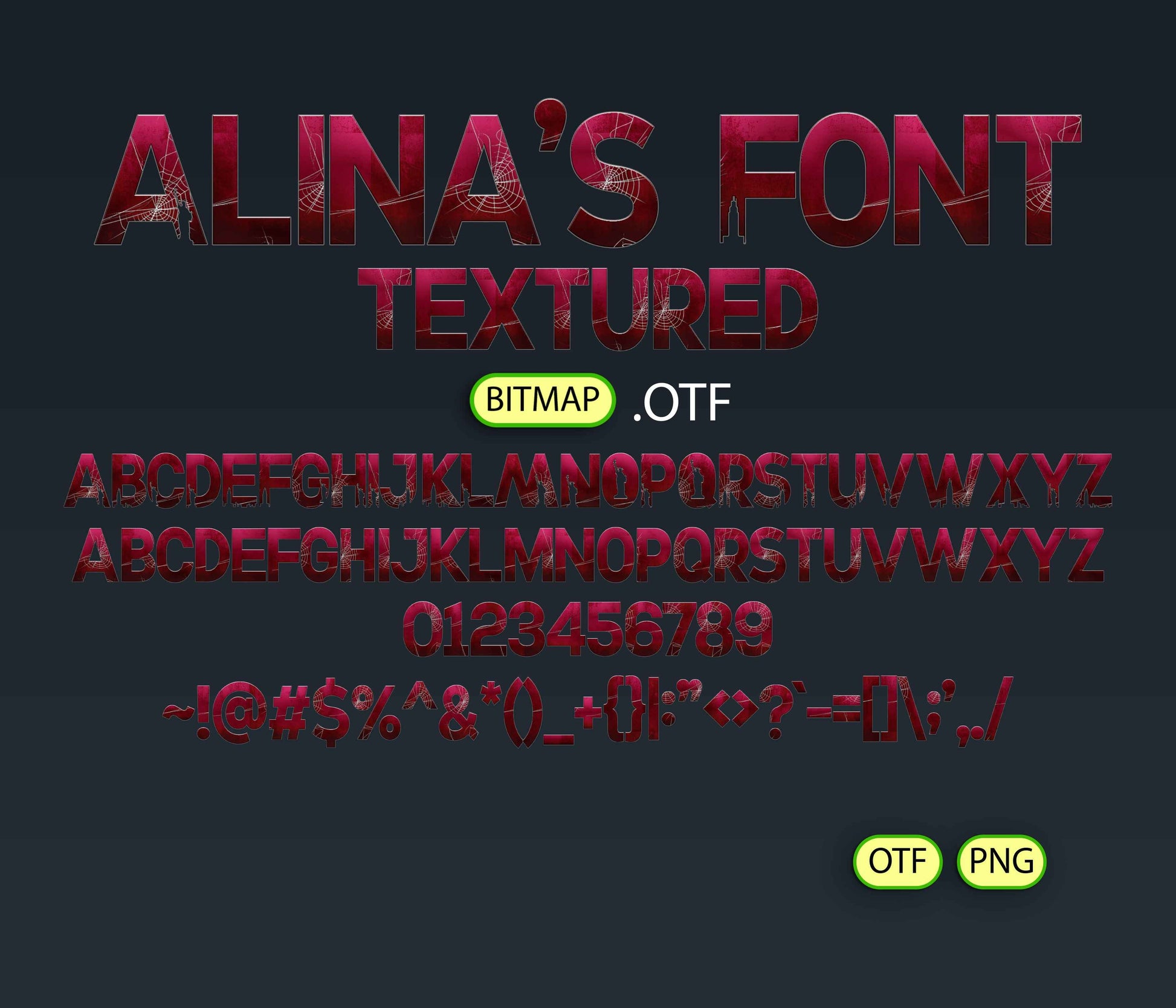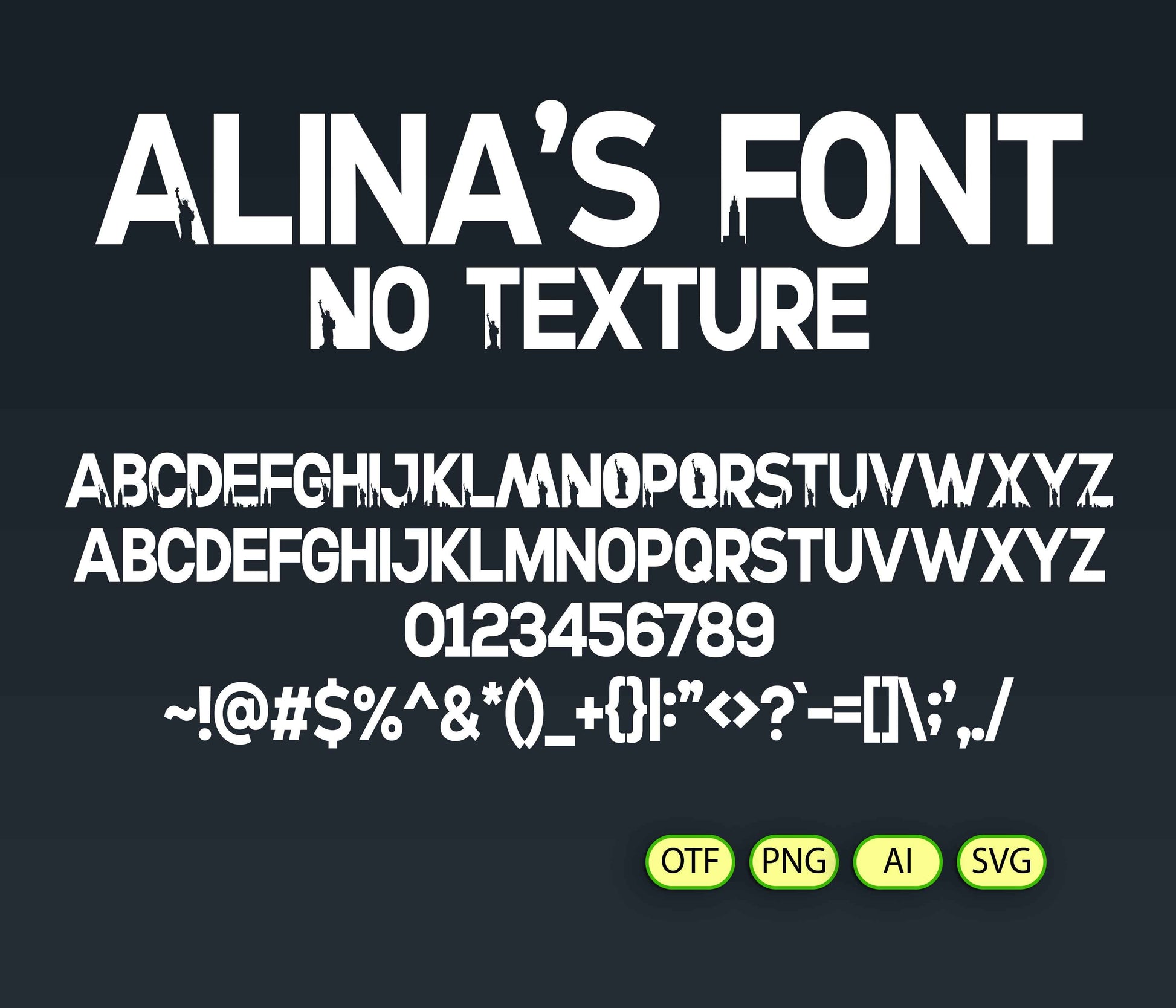
Mystic Oracle Font Textured
Mystic Oracle Movie Textured Fonts
Step into the enigmatic realm of a superhero universe with our Mystic Oracle font, a captivating creation inspired by the mystique and psychic prowess of an intriguing character. This font weaves the complex threads of destiny and the supernatural, embodying the essence of a clairvoyant's connection to the web of fate and her pivotal role within a multiverse. It's designed not just for fans of comics and anticipated adaptations but for anyone drawn to the allure of a universe where power, mystery, and heroism intertwine.
What font is the Mystic Oracle font?
We reveal a font that intricately mimics the aura and thematic elements associated with psychic characters in comic books and media. This typeface captures the elegance, complexity, and strength of a clairvoyant hero, featuring stylized letters that reflect a unique blend of ancient wisdom and modern heroism. The character set extends beyond basic alphabets to include numbers and special symbols, ensuring a versatile tool for conveying messages steeped in mystery and power.
The Mystic Oracle font transcends ordinary typography, offering a portal to the mystical and heroic dimensions of a superhero universe. It's a tool not just for design but for storytelling, inviting users to explore the depths of their creativity while paying homage to fascinating psychic characters. Whether you're creating for personal enjoyment, for a community of fans, or for commercial purposes, this font adds a touch of mystery and elegance, ensuring that your projects stand out in the vast web of digital and physical creations. Embrace the legacy of clairvoyant heroes and let your designs weave their own tales of adventure and mystique.